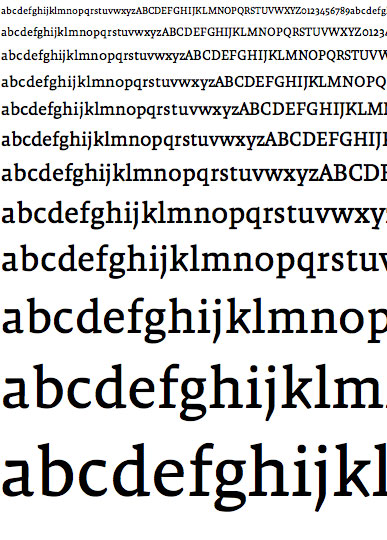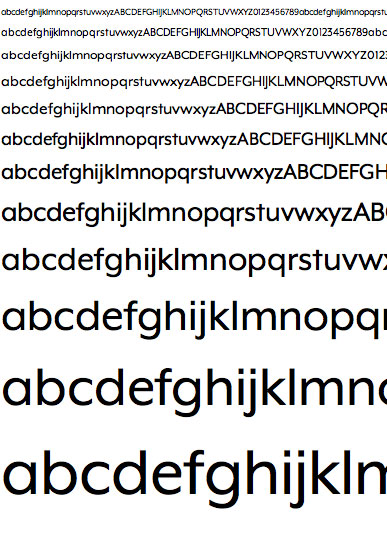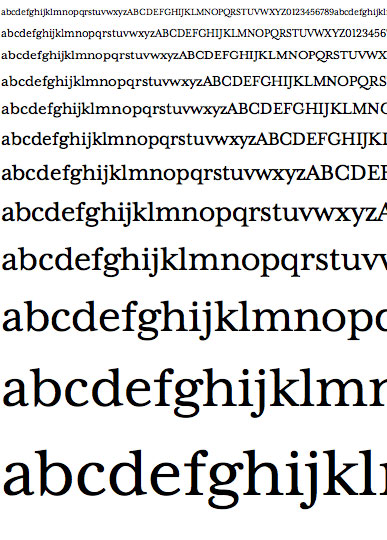
The "Type Director's Picks" is a selection of fonts from our web fonts library that perform well at all sizes. All of our web fonts have been optimized for web screen display, but we recommend that only the Type Director's Picks be used at small text sizes.
Just like fonts used in print, web fonts should be used judiciously. For instance, when selecting a font for print work, it is important to take into consideration the printing technique, paper quality, reading circumstances, and the size at which the font is printed. A skilled typographer would never use a high contrast font such as Bodoni at 6 point and print it on news print paper using a high speed press. The hairline strokes and serifs would disintegrate. The web, too, requires that you select fonts based on their suitability to the medium and that you use them discriminately. A font that may perform perfectly at 6 point when printed on the smooth surface of an exquisitely coated stock, becomes illegible when displayed at 6 px on a 72 dpi computer screen.
Not all fonts are created equal, and not all fonts can be easily converted to the coarse resolution of a display screen. No matter how much hinting is applied to a font, the web has limitations that make certain fonts look better than others, specifically at small sizes. It comes down to the structure of the font. Typefaces with a large x-height, low stroke contrast, open counters, and squarish features, are better adapters than their opposites. Some fonts contain subtle or intricate details which are lost on screen. To improve their appearance, particularly at small sizes, certain fonts would require to be redesigned to better match the limitations of the screen display. But this carries the risk that a font would lose the very character and identity that makes it appealing and unique.
These issues created a particular challenge when customers began demanding that the Emigre fonts they've used for years be made available for use in their web site designs as well. Since then, we have optimized our web fonts hinting for screen display. However, as the technology remains in flux, the variables of the different platforms, screens, rasterizers, browser defaults, and user preference settings, sometimes generate inconsistencies beyond our control.
And just as it has been impossible to show how our fonts perform on all available paper surfaces and printing techniques, it is equally impossible to show all the variations of screen display generated by different browsers and preference settings. However, it is safe to say that most of our web fonts perform well above 28 px.
Below are sample screen renderings from 3 of the 189 current Type Director's Picks.
Left: Macintosh display. Right: Windows ClearType display.
Both display samples are taken from an LCD screen.
Sizes are 10, 12, 14, 16, 18, 20, 24, 30, 36, 48, 60, 72.
The variables of screen display generated by different browsers, screens, and user preference settings generate inconsistencies that are difficult to control. The above example shows the Malaga Regular web font lower case m at 24 px, and a 500% enlargement. The top image is from the Macintosh Operating System. The bottom image is Windows ClearType display. Both display samples are taken from an LCD screen.
Two sizes of the Malaga Regular web font shown in the extreme scenarios. In each size the top line is from the Macintosh Operating System. Bottom line is Windows ClearType display.